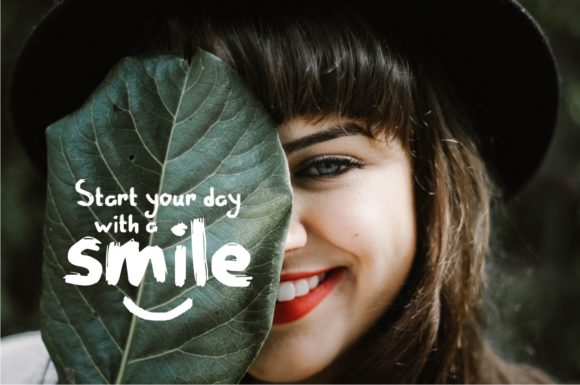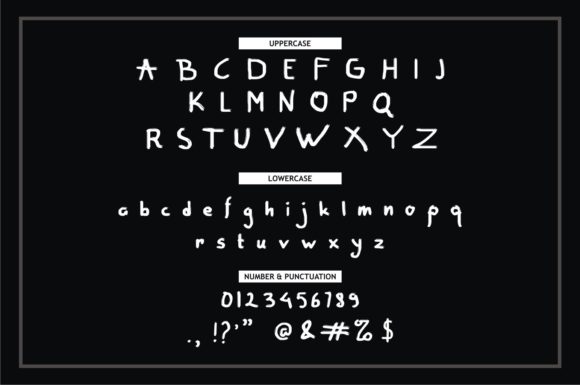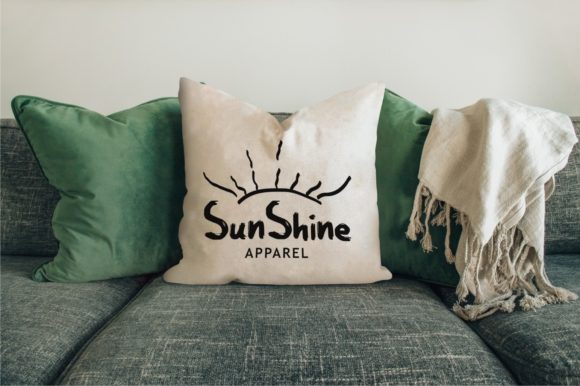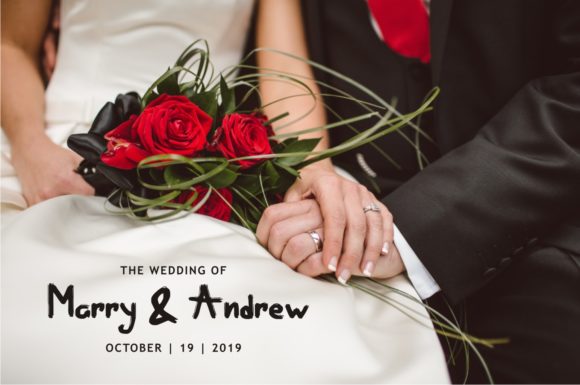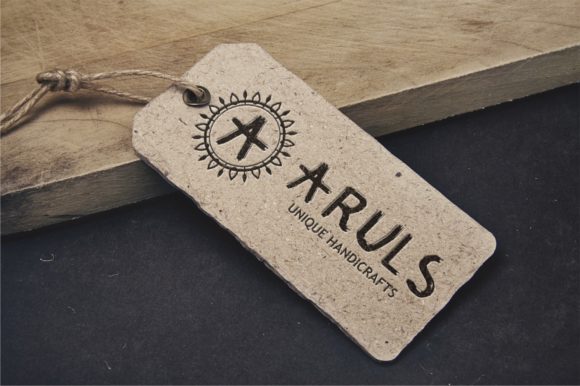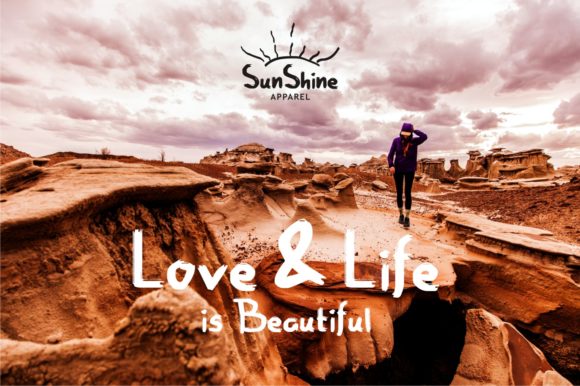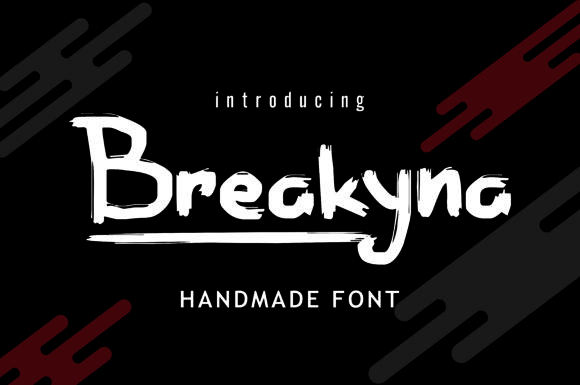
Introducing Breakyna Font: The Ultimate Handmade Brush Font for Bold Designs
Are you tired of using the same old fonts for your designs? Look no further! Breakyna Font is here to revolutionize your creative projects with its bold and striking look. This fun handmade brush font is perfect for designers and crafters who want to add a personal touch to their work. In this article, we’ll dive into the features and benefits of Breakyna Font, and explore how it can elevate your designs to the next level.
What is Breakyna Font?
Breakyna Font is a unique and creative typeface that is handcrafted with love and care. Its bold and striking appearance makes it perfect for designs that need to stand out from the crowd. Whether you’re working on a poster, web header, book cover, or packaging, Breakyna Font is the ideal choice. Its handmade brush font style gives it a personal and artistic feel that will make your designs shine.
Key Features of Breakyna Font
- Handmade with love and care: Breakyna Font is crafted with precision and attention to detail, giving it a unique and personal touch.
- Bold and striking look: This font is designed to make a statement, making it perfect for designs that need to grab attention.
- Perfect for creative projects: Breakyna Font is ideal for posters, web headers, book covers, packaging, and any other design that needs a strong typeface.
- Easily customizable: With Breakyna Font, you can adjust the font size, color, and style to fit your design needs.
Benefits of Using Breakyna Font
So, why choose Breakyna Font for your designs? Here are just a few benefits of using this amazing font:
- Adds a personal touch: Breakyna Font’s handmade brush font style gives your designs a personal and artistic feel that sets them apart from the rest.
- Increases visibility: The bold and striking look of Breakyna Font makes it perfect for designs that need to grab attention and stand out.
- Versatile: Breakyna Font can be used for a wide range of designs, from posters and web headers to book covers and packaging.
- Easy to use: With Breakyna Font, you can easily customize your designs to fit your needs, making it perfect for designers of all levels.
How to Use Breakyna Font in Your Designs
Using Breakyna Font in your designs is easy! Here are a few tips to get you started:
- Pair it with other fonts: Breakyna Font pairs perfectly with other fonts, such as sans-serif fonts, to create a unique and visually appealing design.
- Experiment with colors: Try out different colors and combinations to find the perfect look for your design.
- Adjust font size and style: Play around with different font sizes and styles to add emphasis and create visual interest.
In conclusion, Breakyna Font is a game-changer for designers and crafters who want to add a personal touch to their work. With its bold and striking look, handmade brush font style, and versatility, it’s the perfect choice for a wide range of designs. Whether you’re working on a poster, web header, book cover, or packaging, Breakyna Font is sure to elevate your designs to the next level. So why wait? Try Breakyna Font today and see the difference it can make!